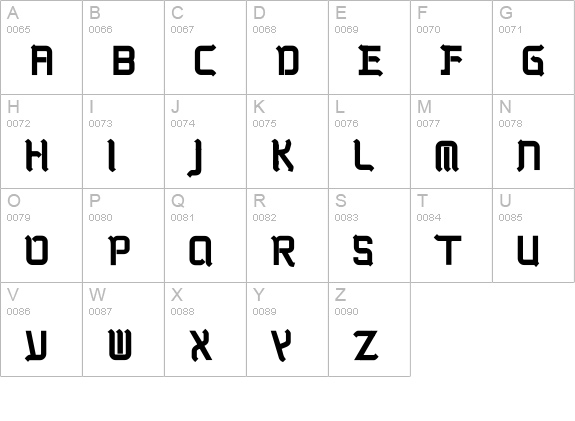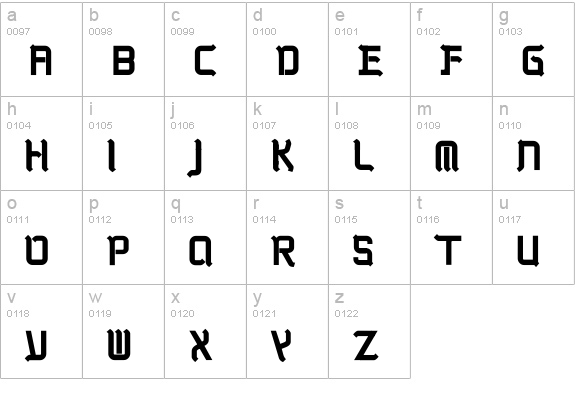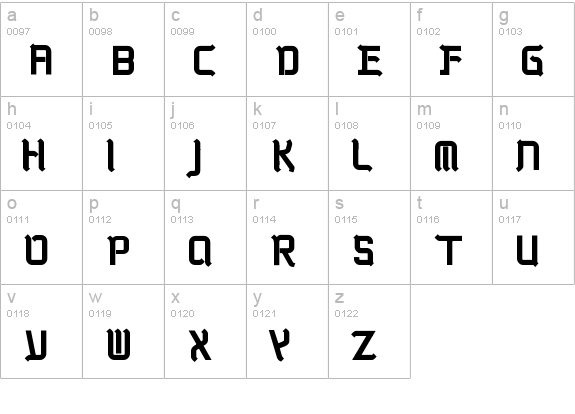
Kwadryga Font Details
Kwadryga font is a modern and stylish typeface that exudes elegance and sophistication. With its clean lines and unique geometric shapes, Kwadryga is perfect for a wide range of design projects, from branding to packaging to editorial. This versatile font is sure to make your text stand out and leave a lasting impression on your audience. What's more, Kwadryga font is available for free download at FontsMarket.com. This means you can easily access this stunning typeface and use it in your projects without any cost. Don't miss out on the opportunity to enhance your designs with the beauty and versatility of Kwadryga font. Download it now and see the difference it can make in your creative endeavors.